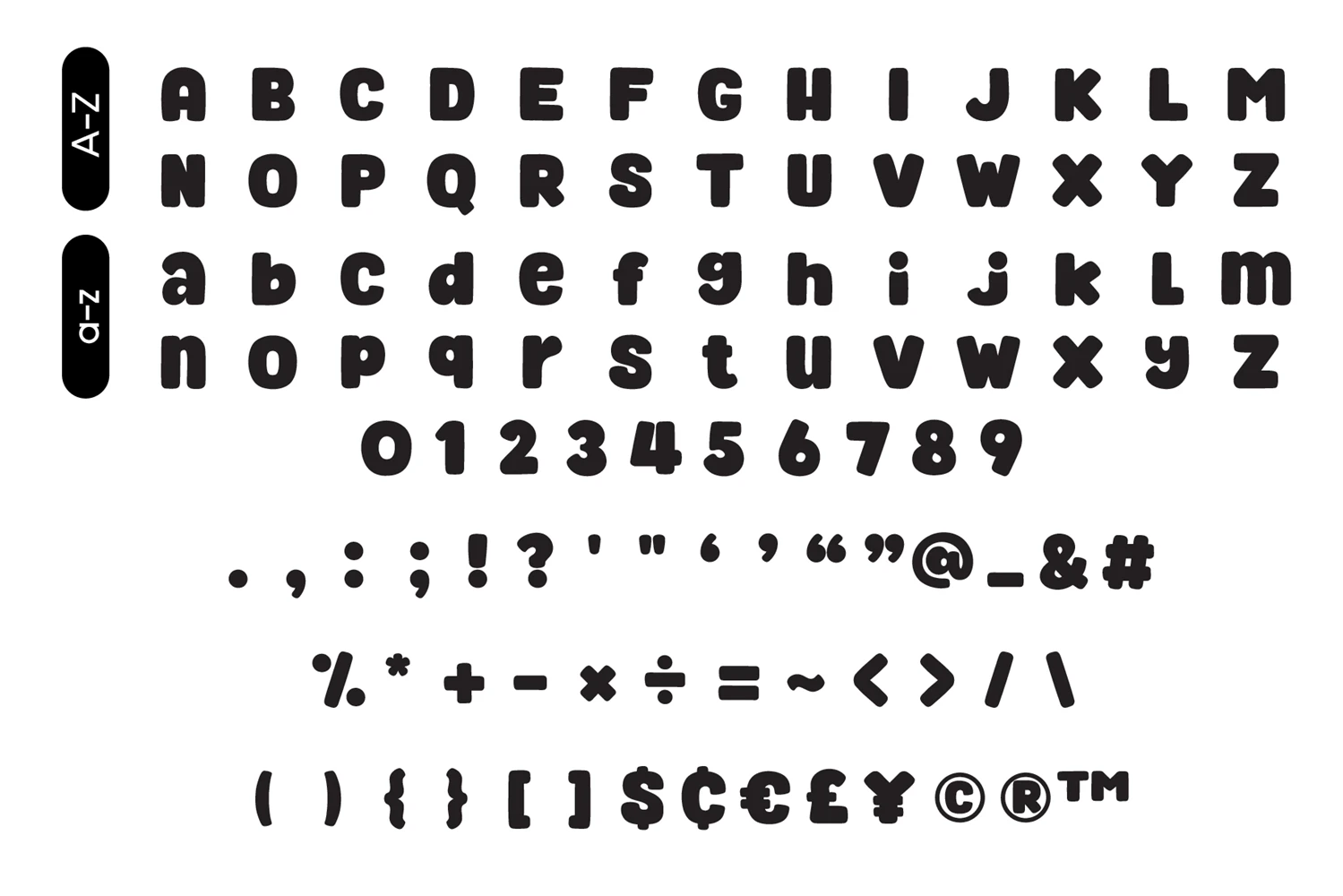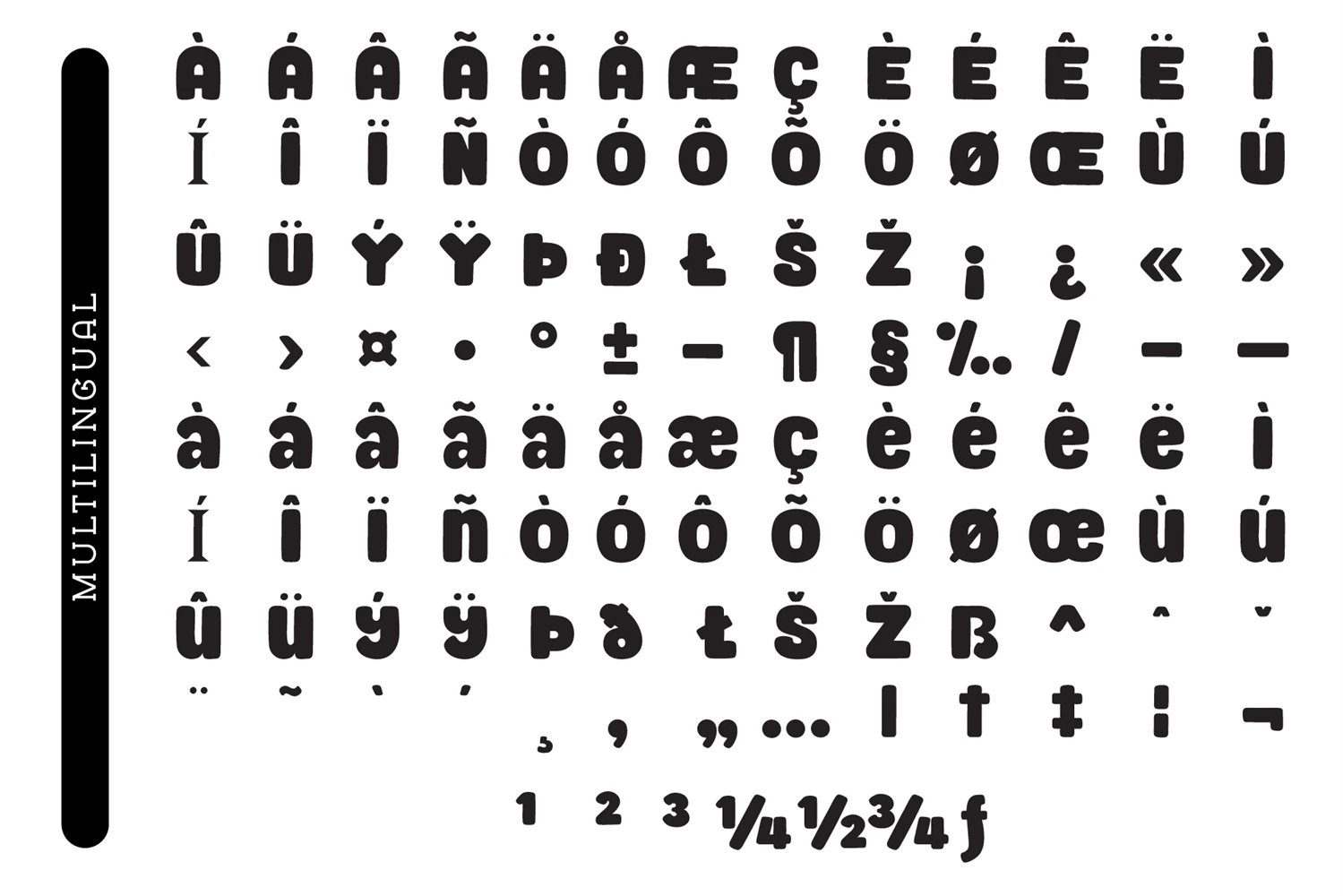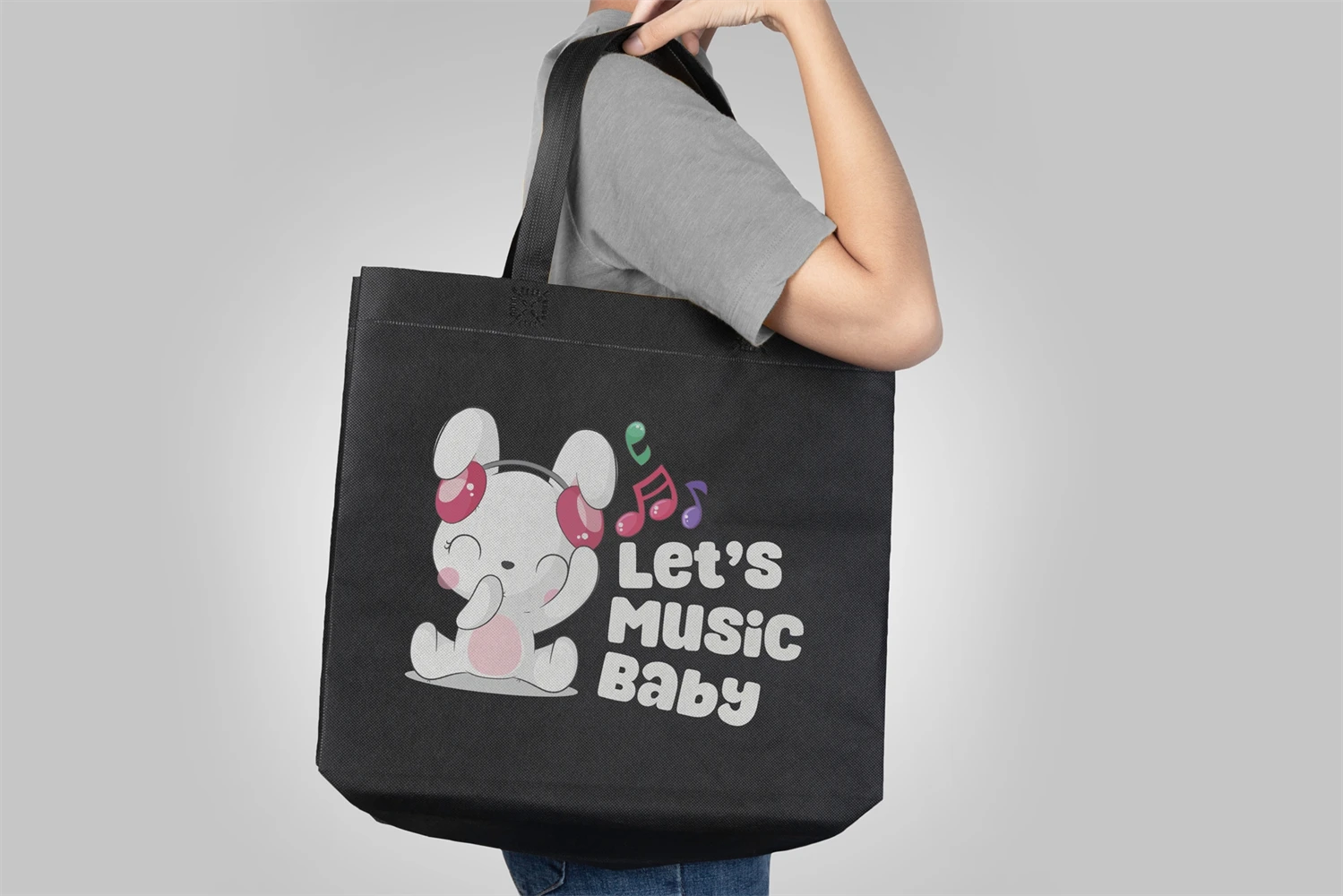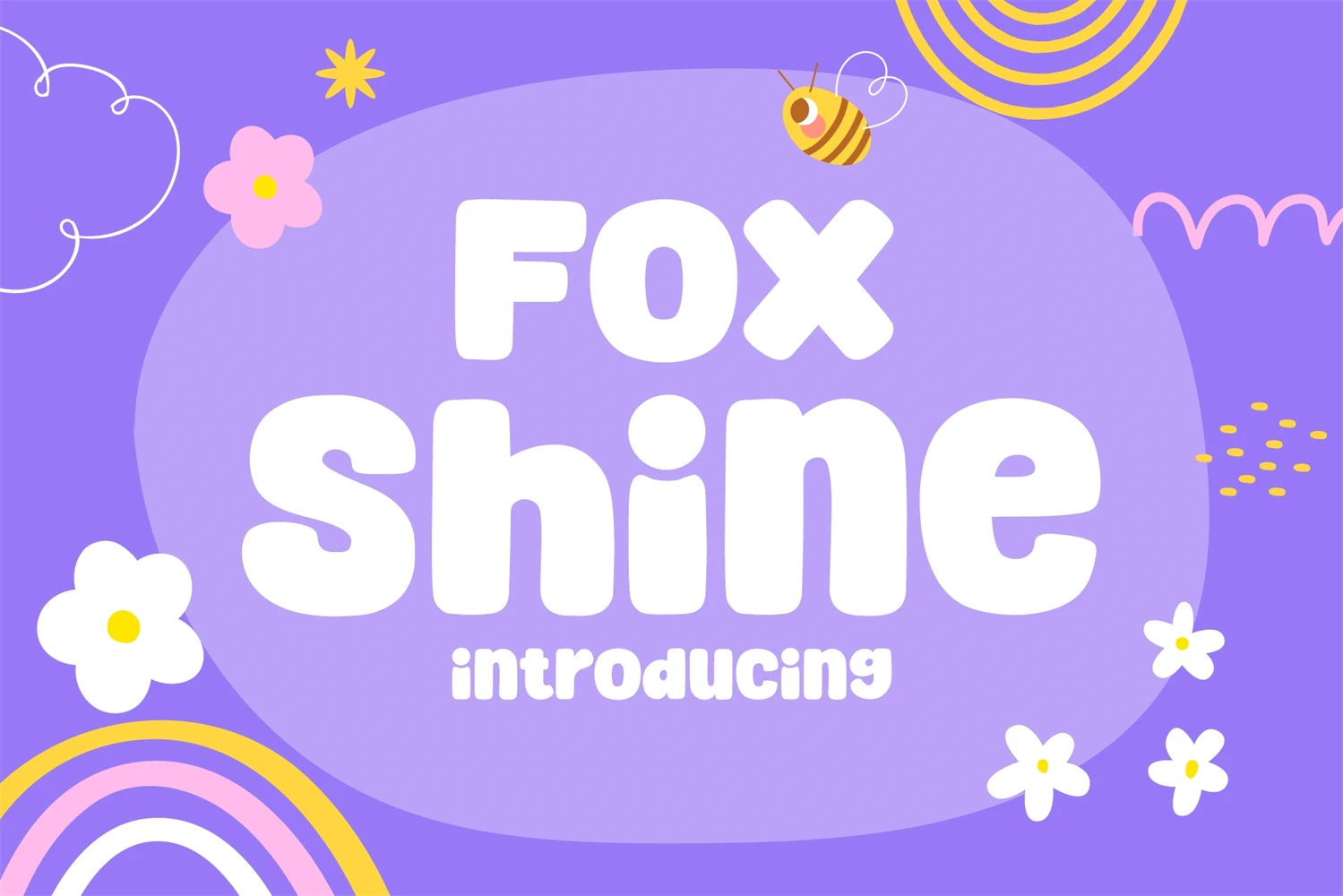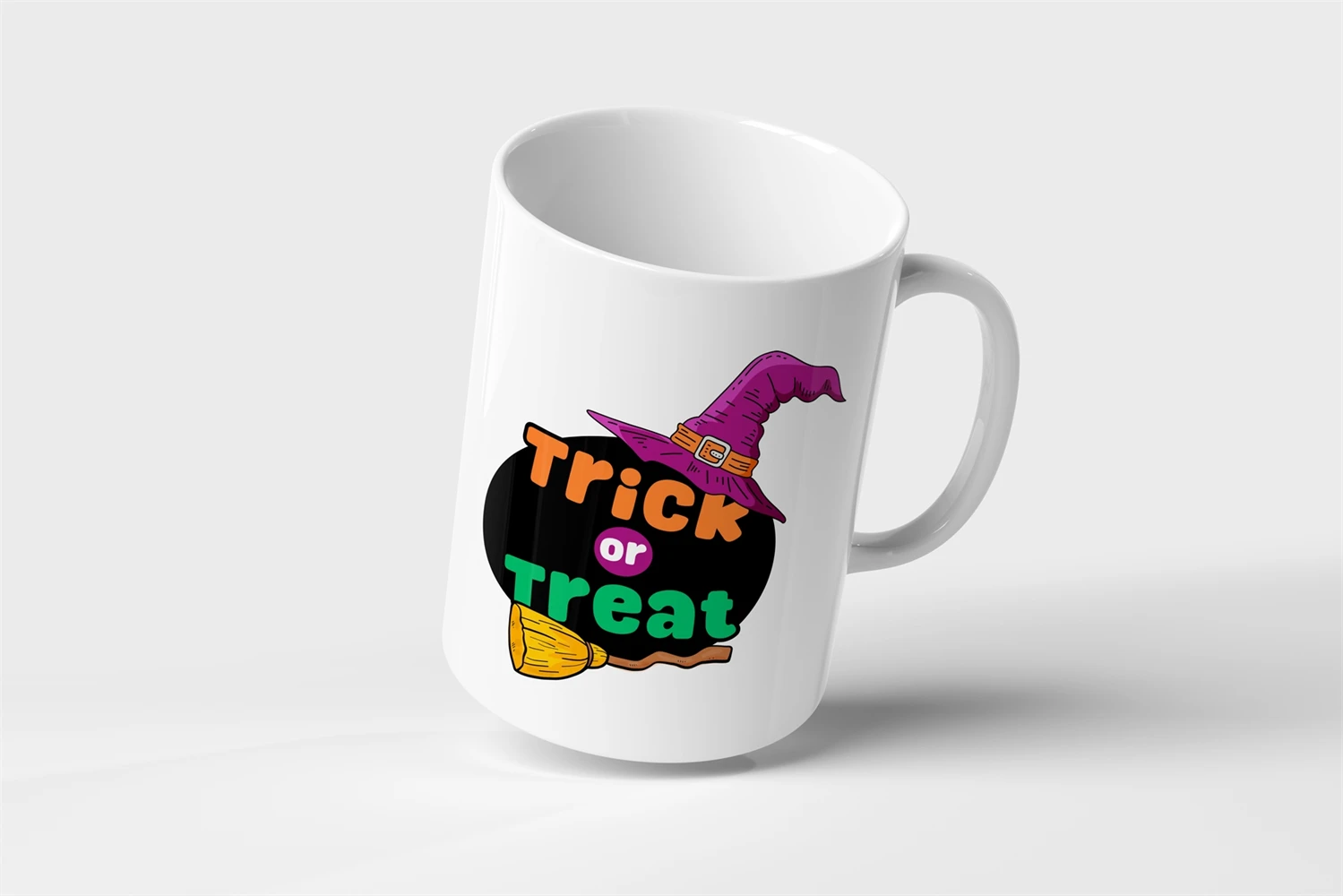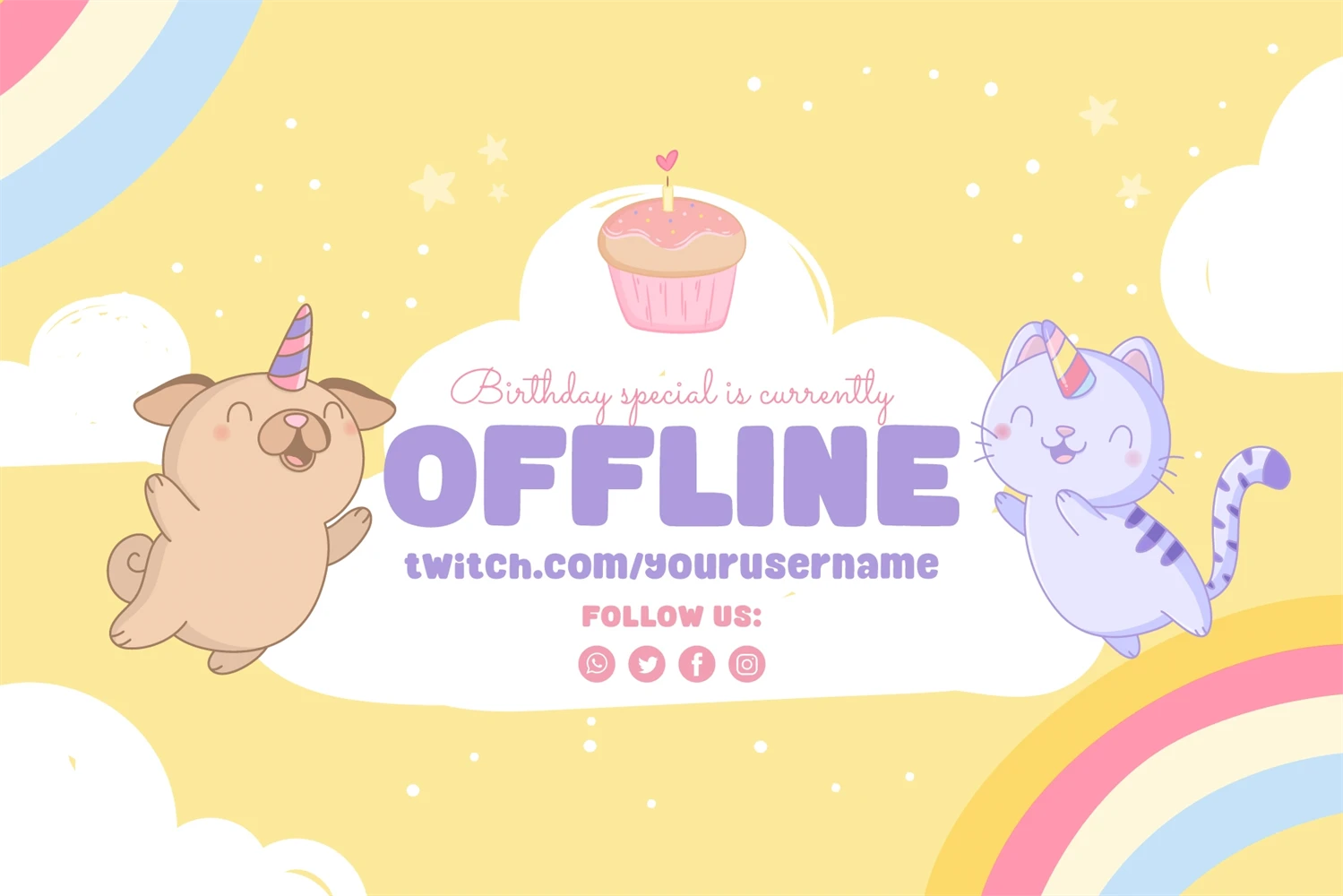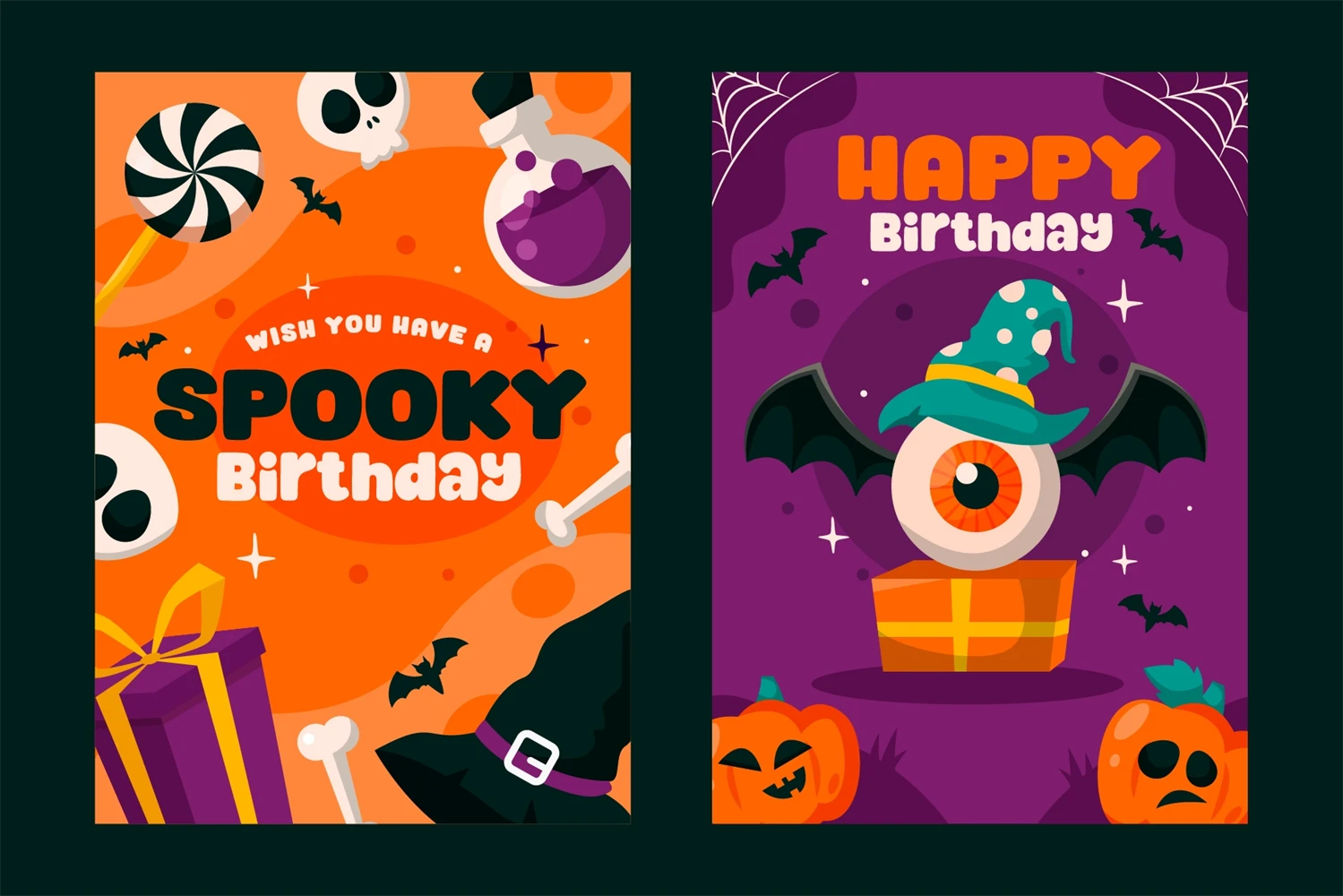
Fox Shine is a bold , Cool, fun, and cute font. that adds a captivating and energetic touch to your designs. It is perfect for logos, t-shirts, papers, print designs, website headers, photo frames, flyers, music covers, posters, image sliders, and much more.